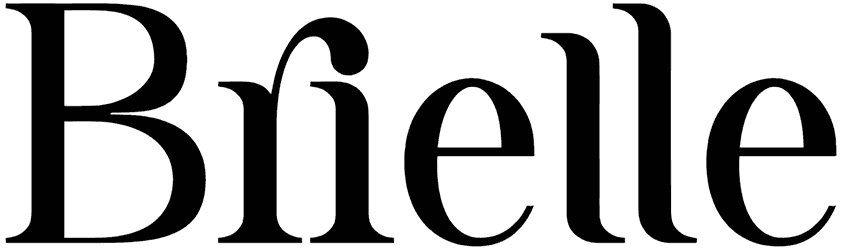
Brielle Font
You can always count on a serif font like the present offer to give a professional visual to your design. The Brielle font covers two versions and you have a good freedom to use it for different texts. This italic font can adorn your fashion event flyer with its stylish face and capture a lot of attention to your innovative layout.